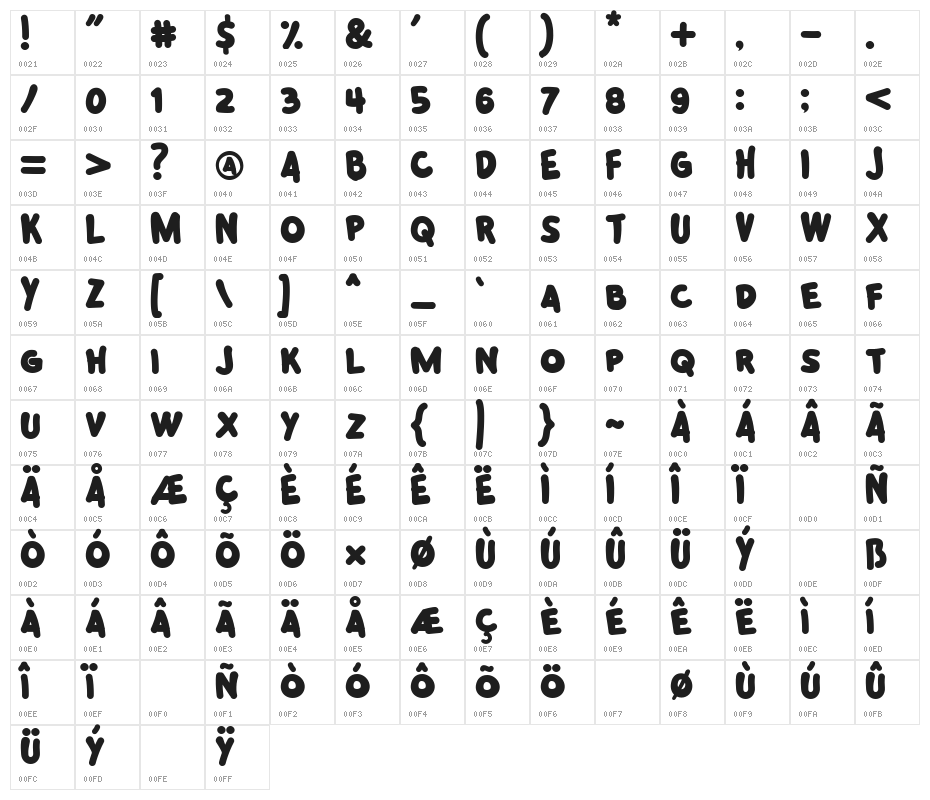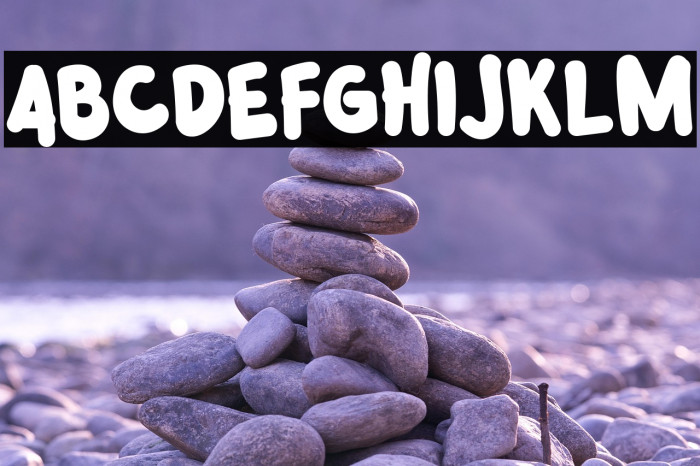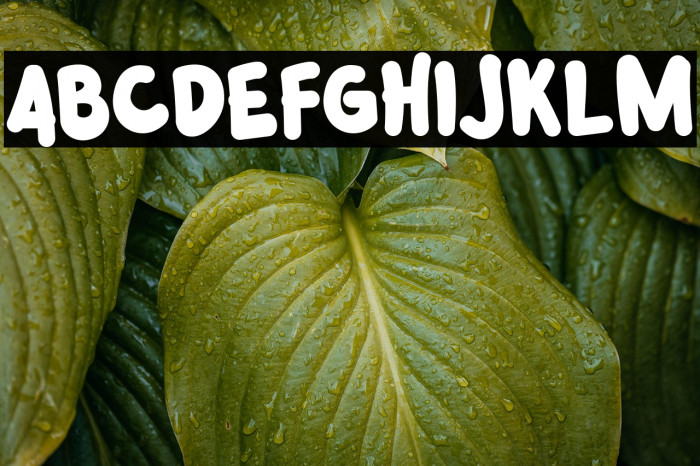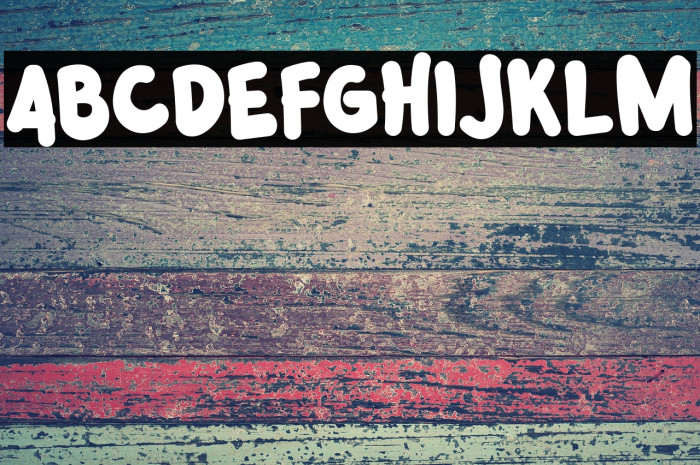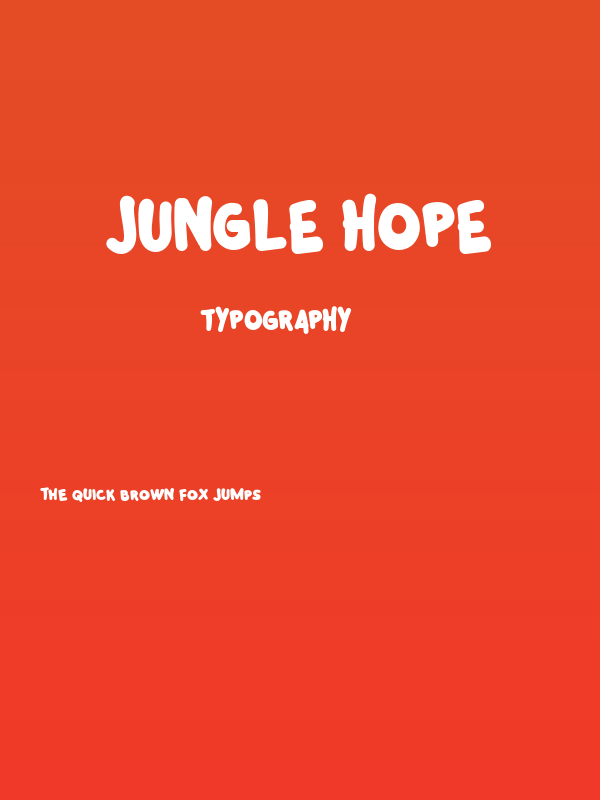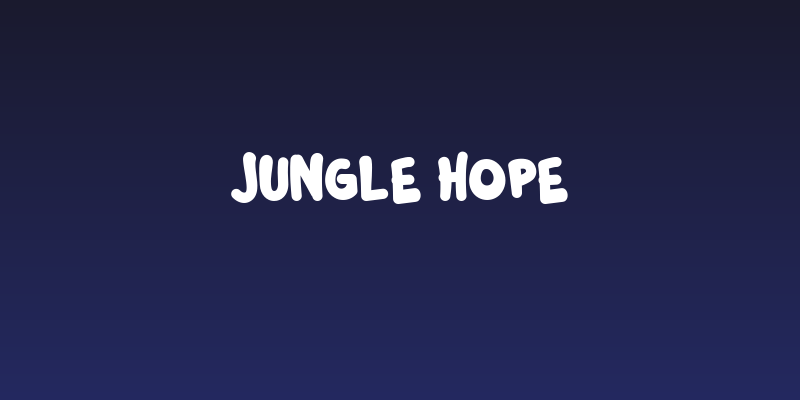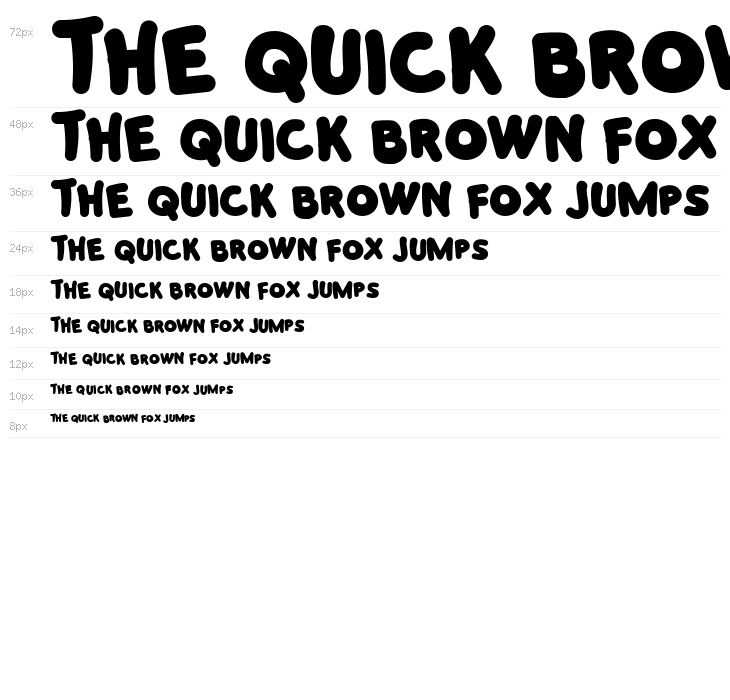
Jungle Hope Font
Jungle Hope Description
This font features a bold and playful design, characterized by its thick, rounded strokes and slightly irregular shapes that give it a whimsical and informal appearance. The letters are uniformly bold, creating a strong visual impact, while the rounded edges add a friendly and approachable feel. The font maintains consistent weight throughout, ensuring readability even at smaller sizes. Its unique style makes it stand out, perfect for projects that require a touch of fun and creativity. The numbers and special characters follow the same design principles, ensuring a cohesive look across all text elements.
| Proposed Projects | Ideal for children's books, playful branding, posters, and creative advertisements. |